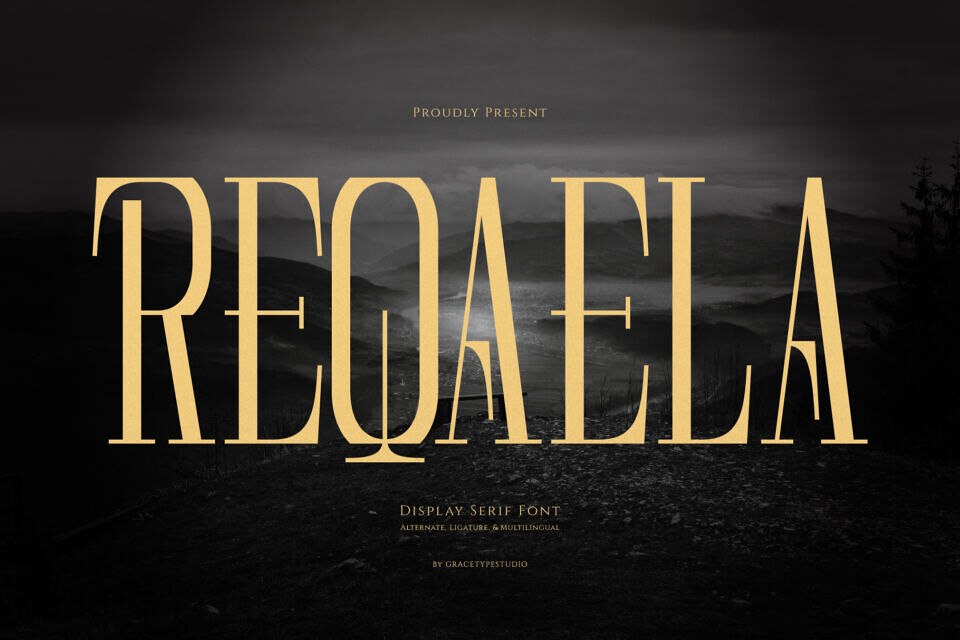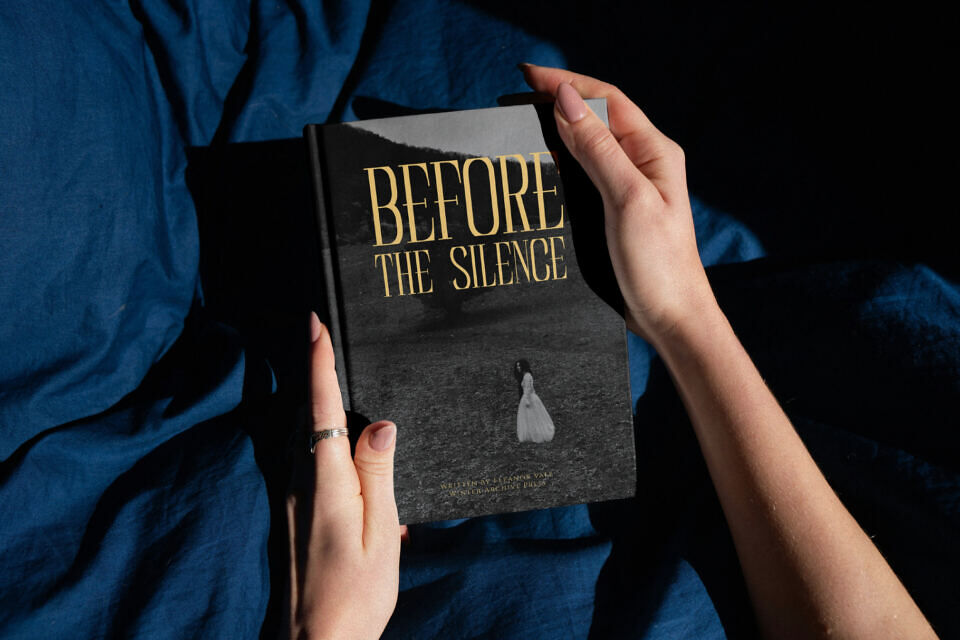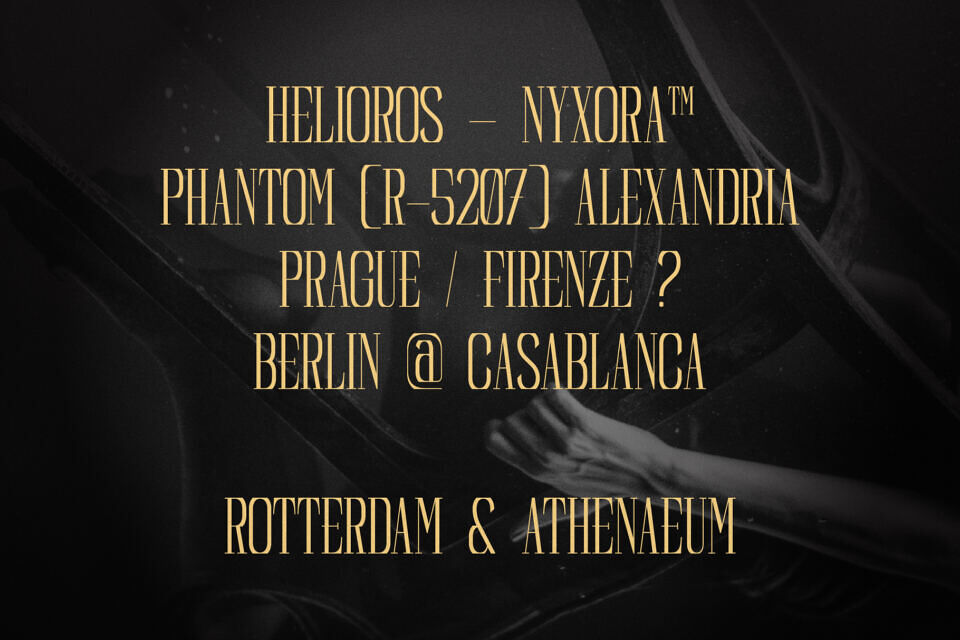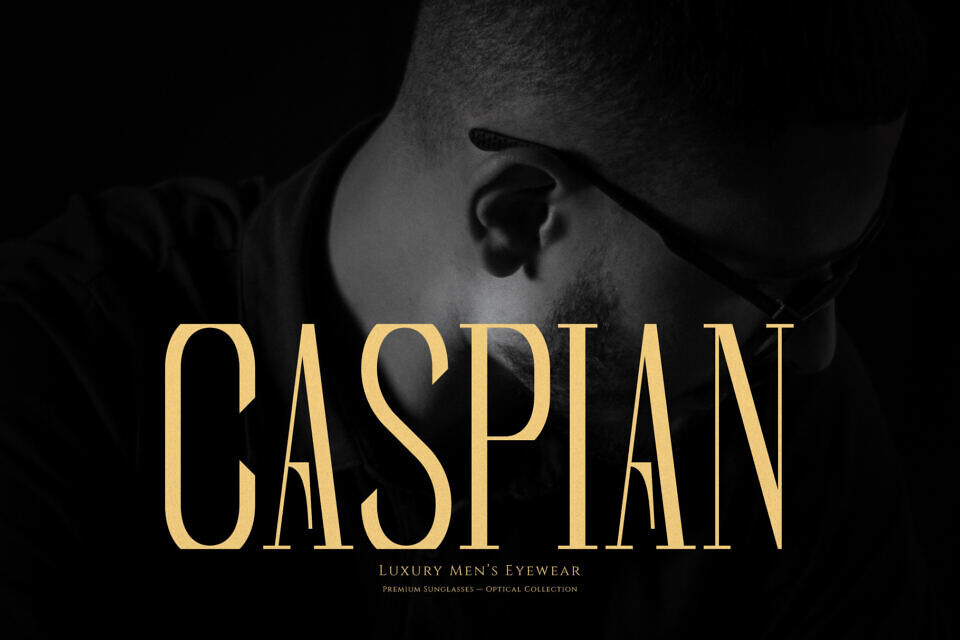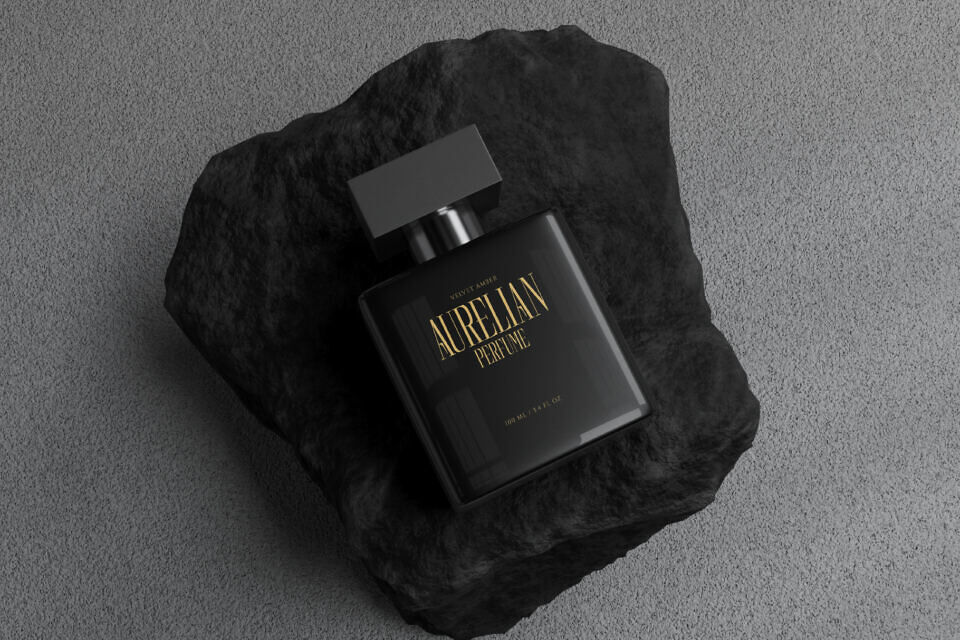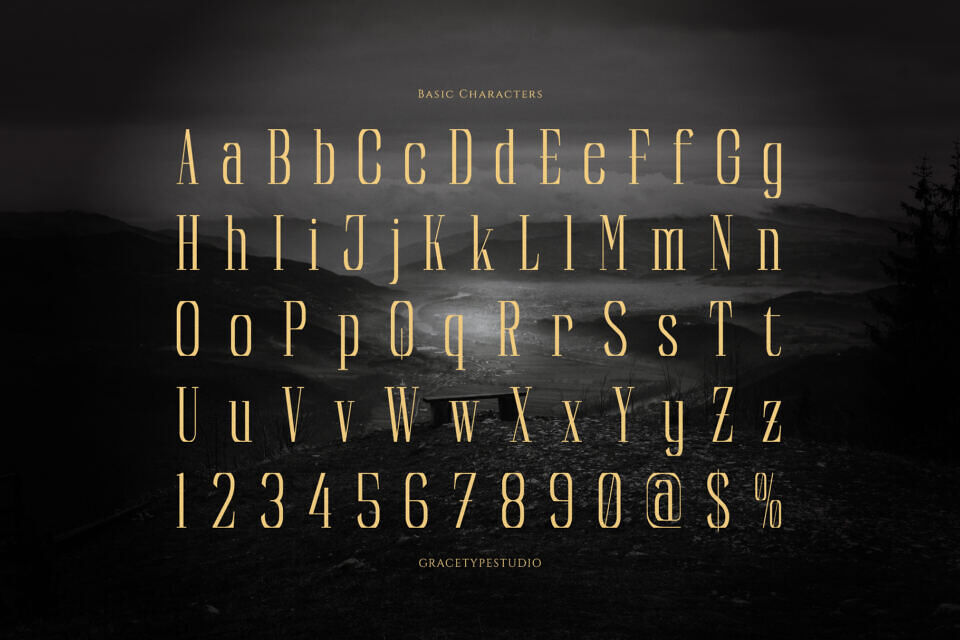
Reqaela Font
Experience the grandeur of Reqaela, a stunning serif font that combines editorial sophistication with cinematic flair. With its extensive range of alternates, ligatures, and multilingual support, Reqaela offers limitless creative possibilities. It shines when paired with moody landscapes, dark mountains, or textured backgrounds, its elegant lines and refined contrast evoking a sense of luxury and refinement.
This elite font functions as an extraordinary centerpiece for dark-academia book cover titles, haute couture fashion branding, boutique perfume and luxury cosmetics packaging, high-end hospitality signage, and prominent premium magazine headlines.